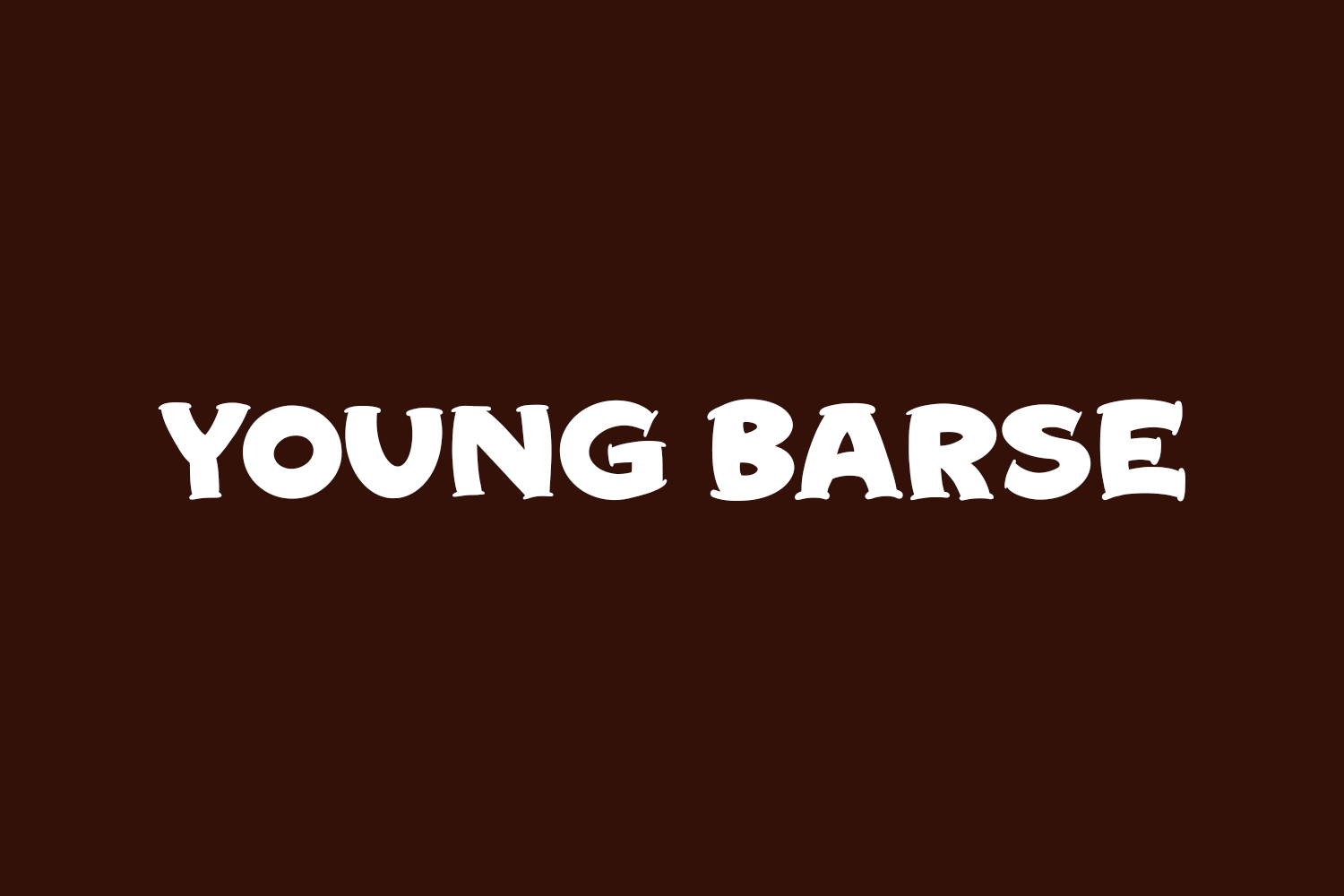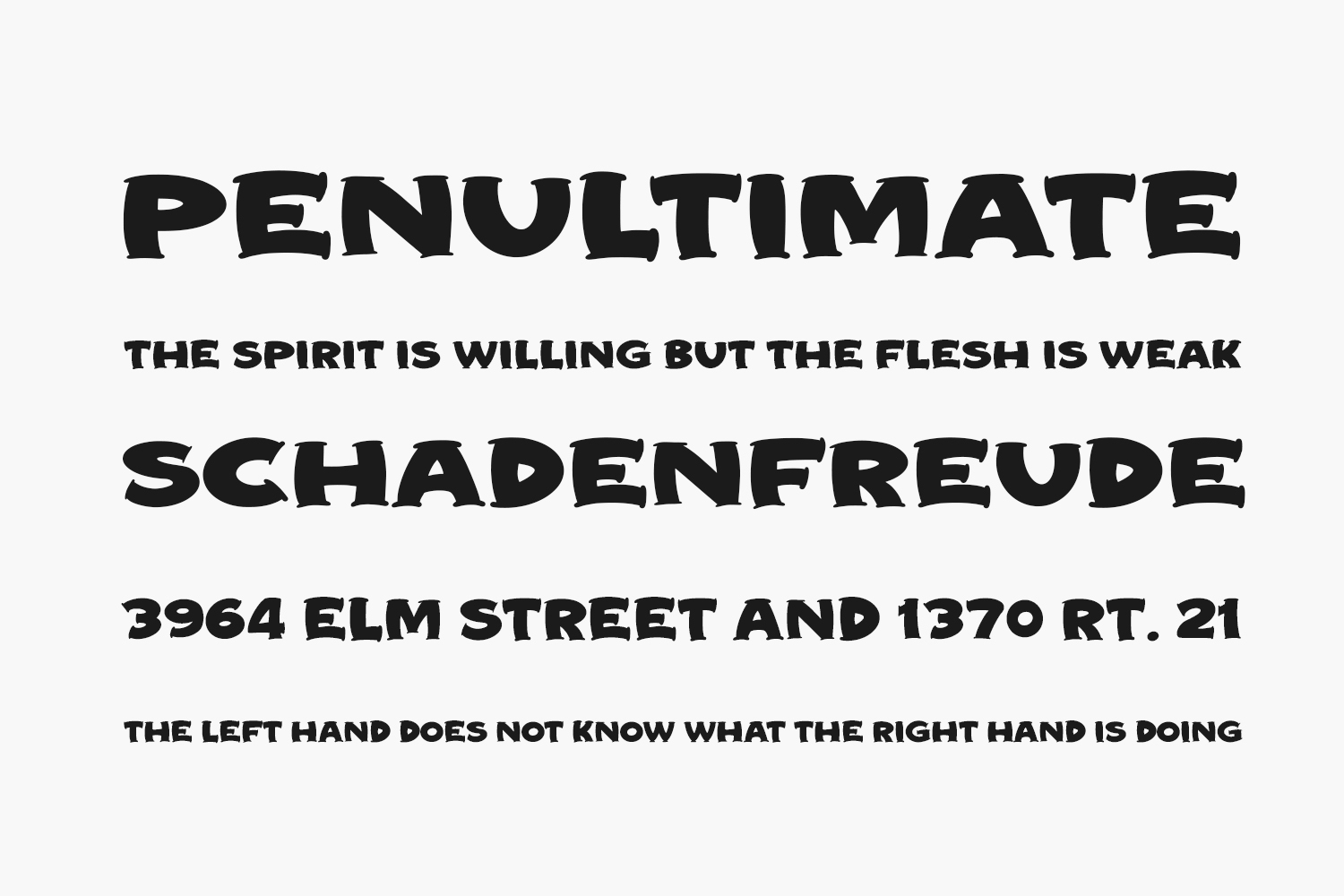
Introducing Young Barse Free Font, a bold and energetic display font perfect for adding a touch of fun to your designs. From children’s games to cartoon-inspired projects and beyond, this lovely font will bring a playful element to any creation.